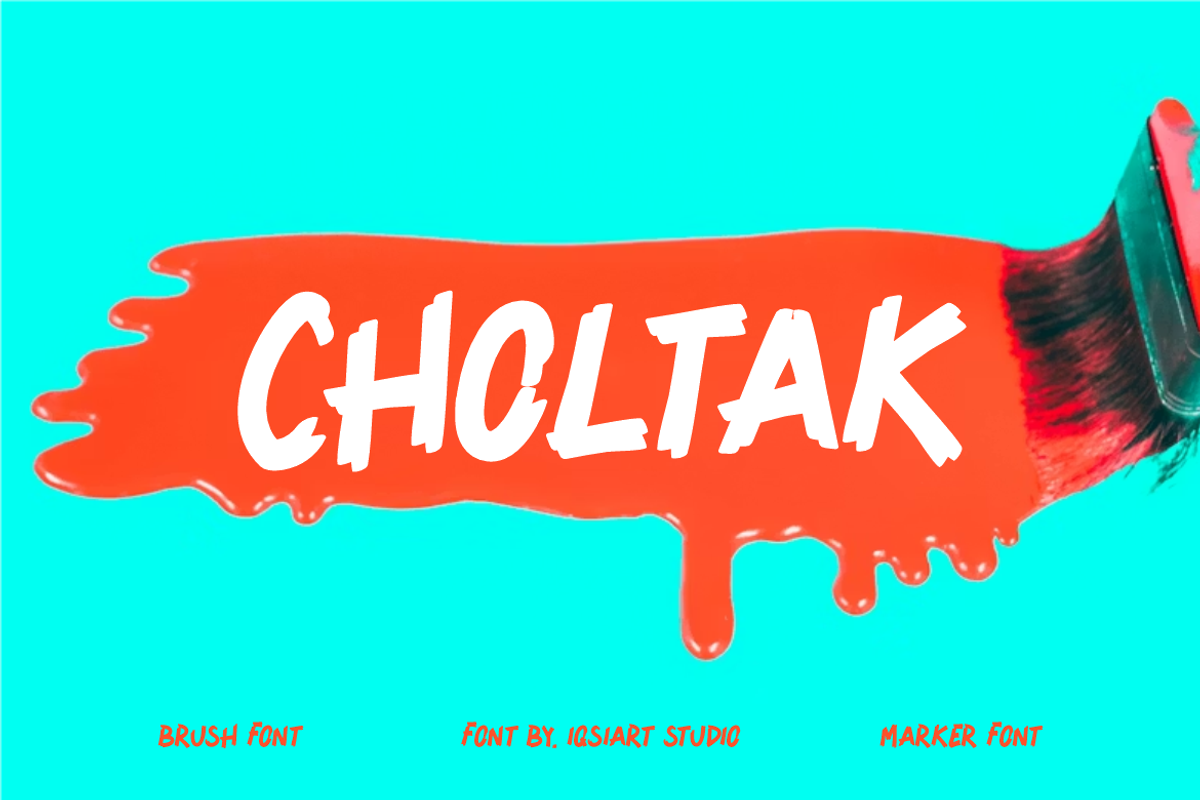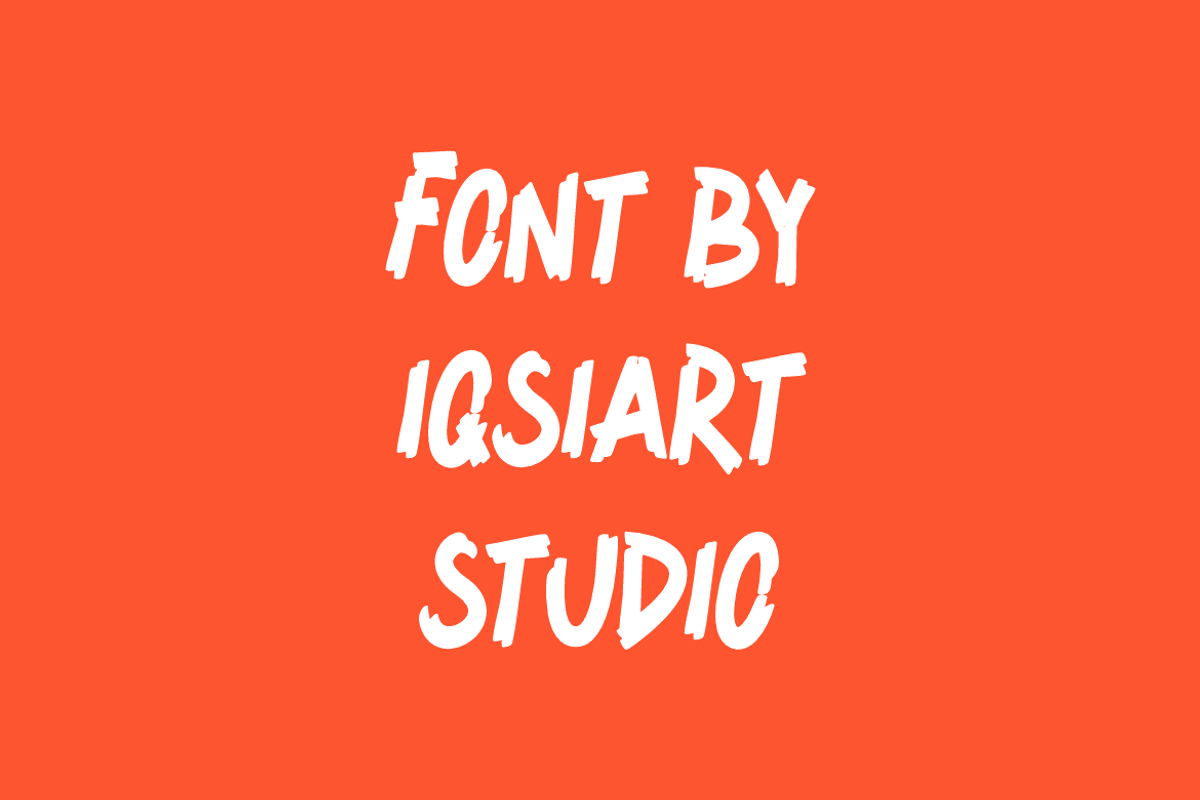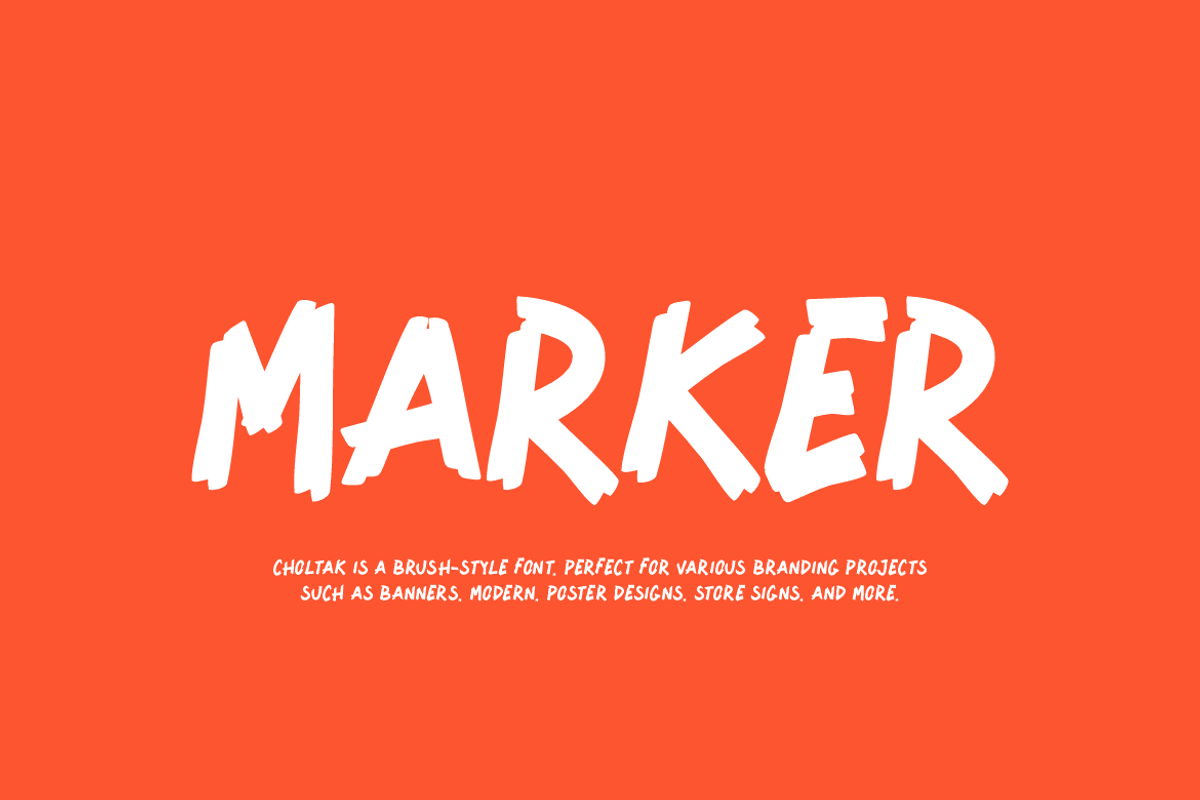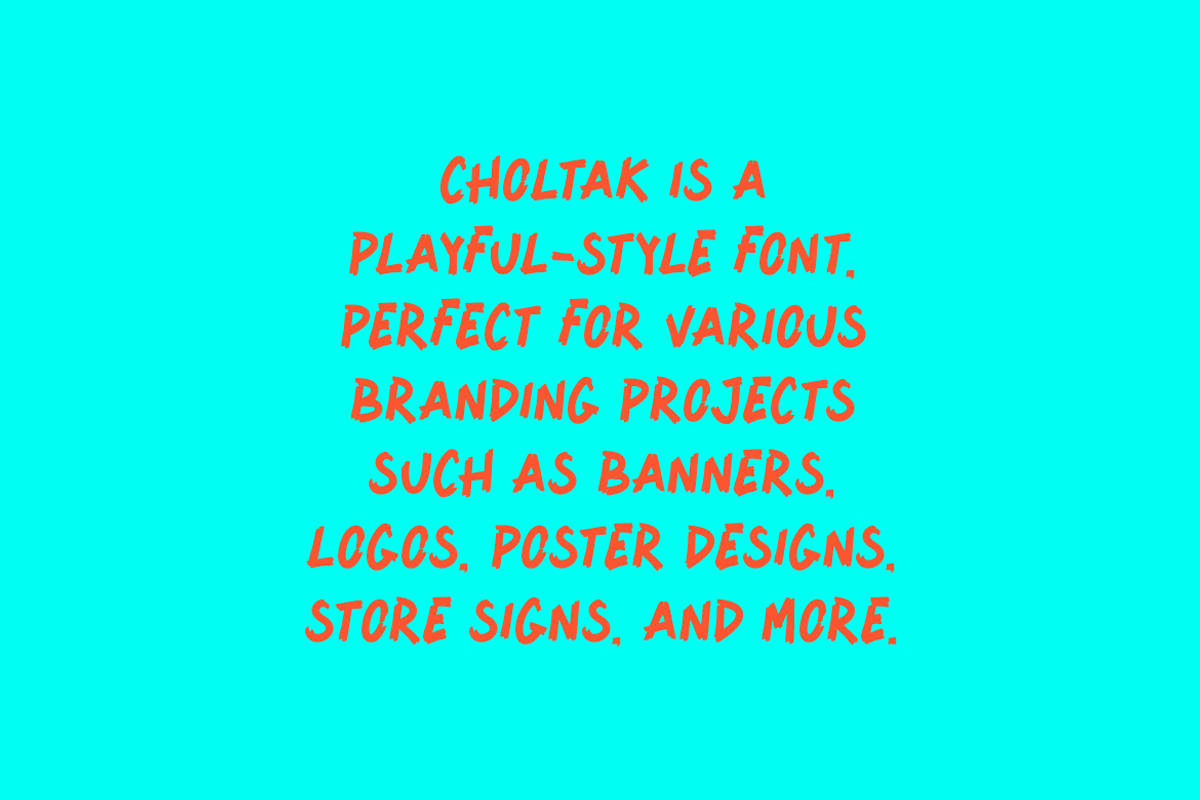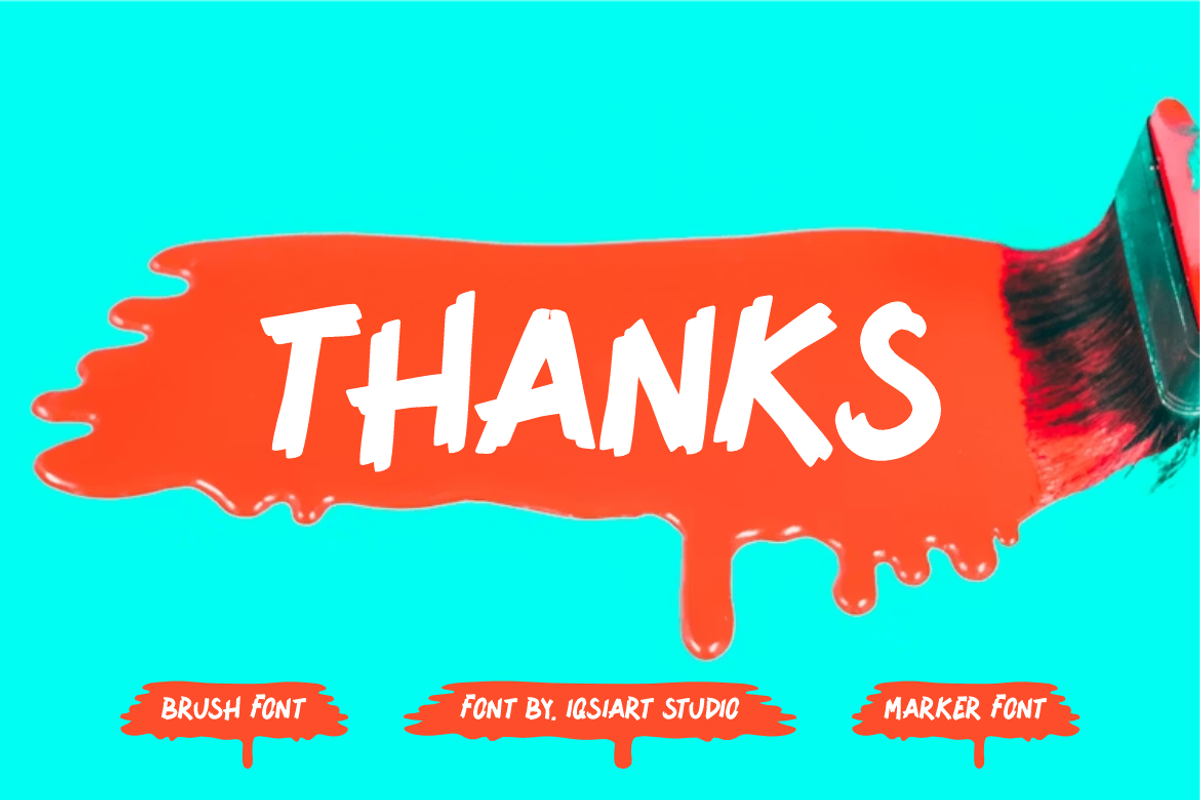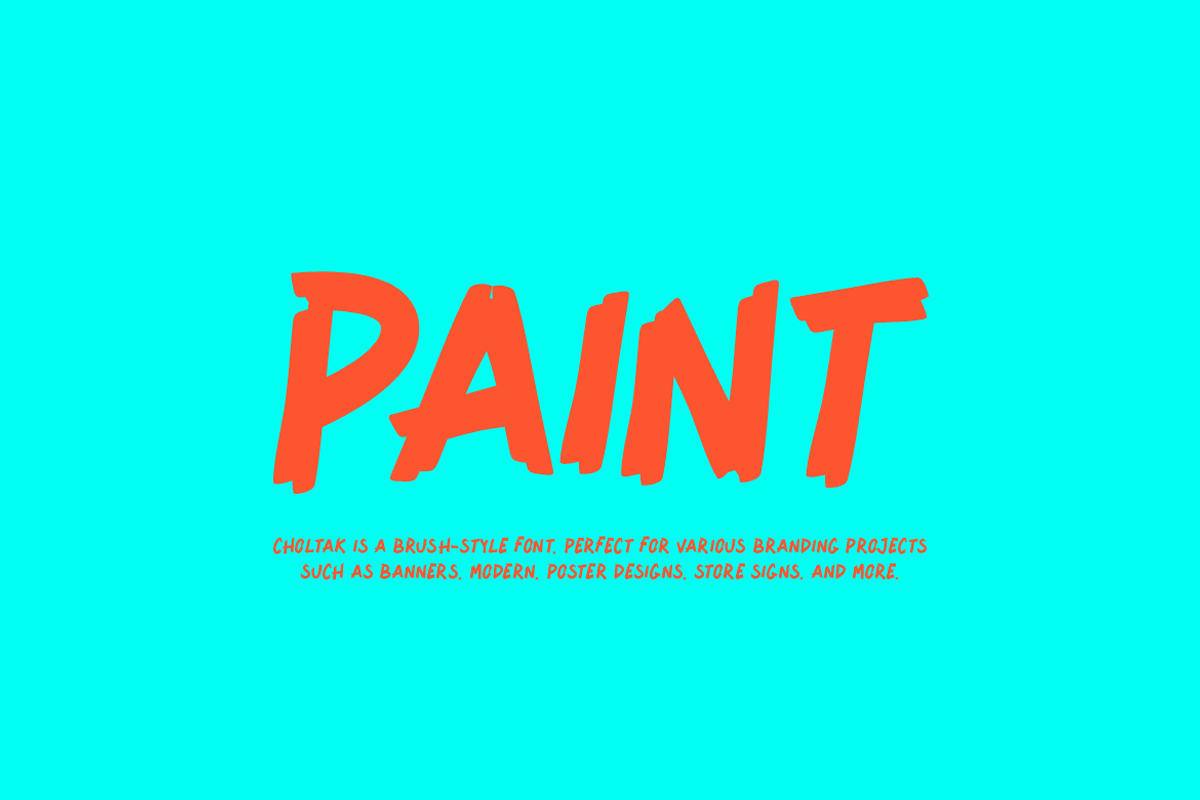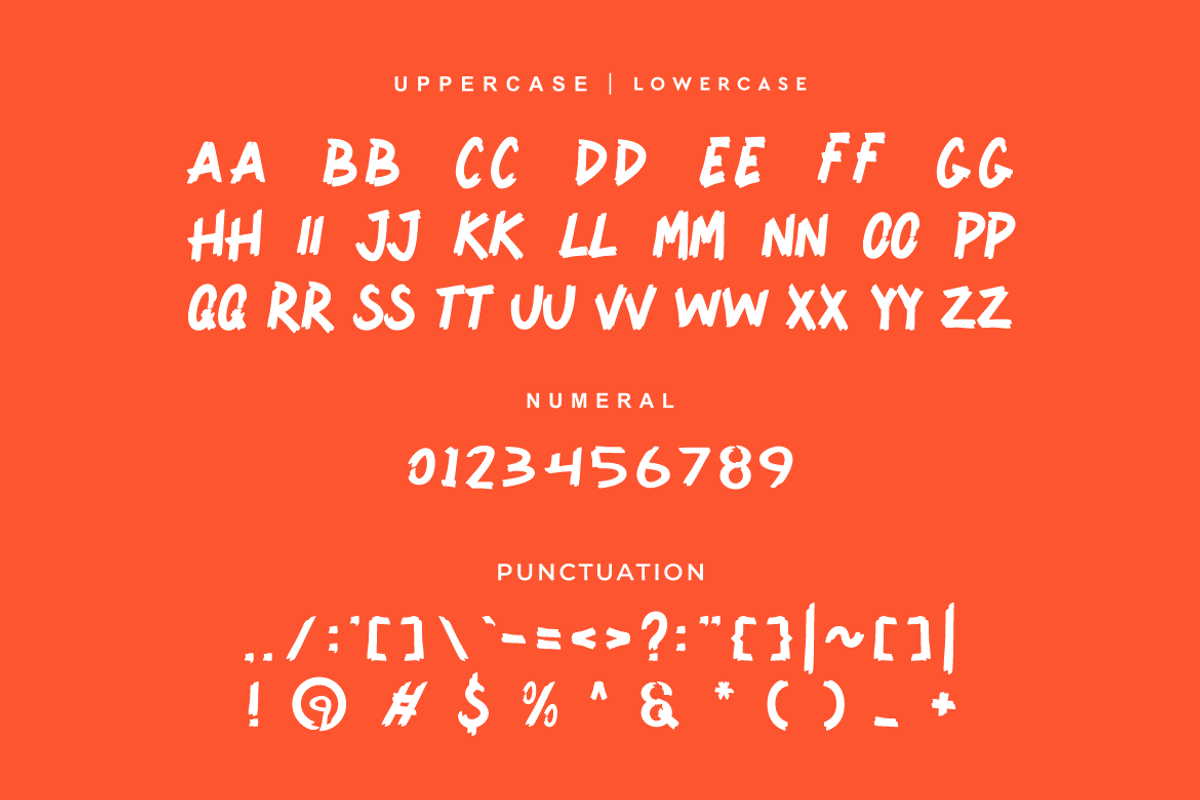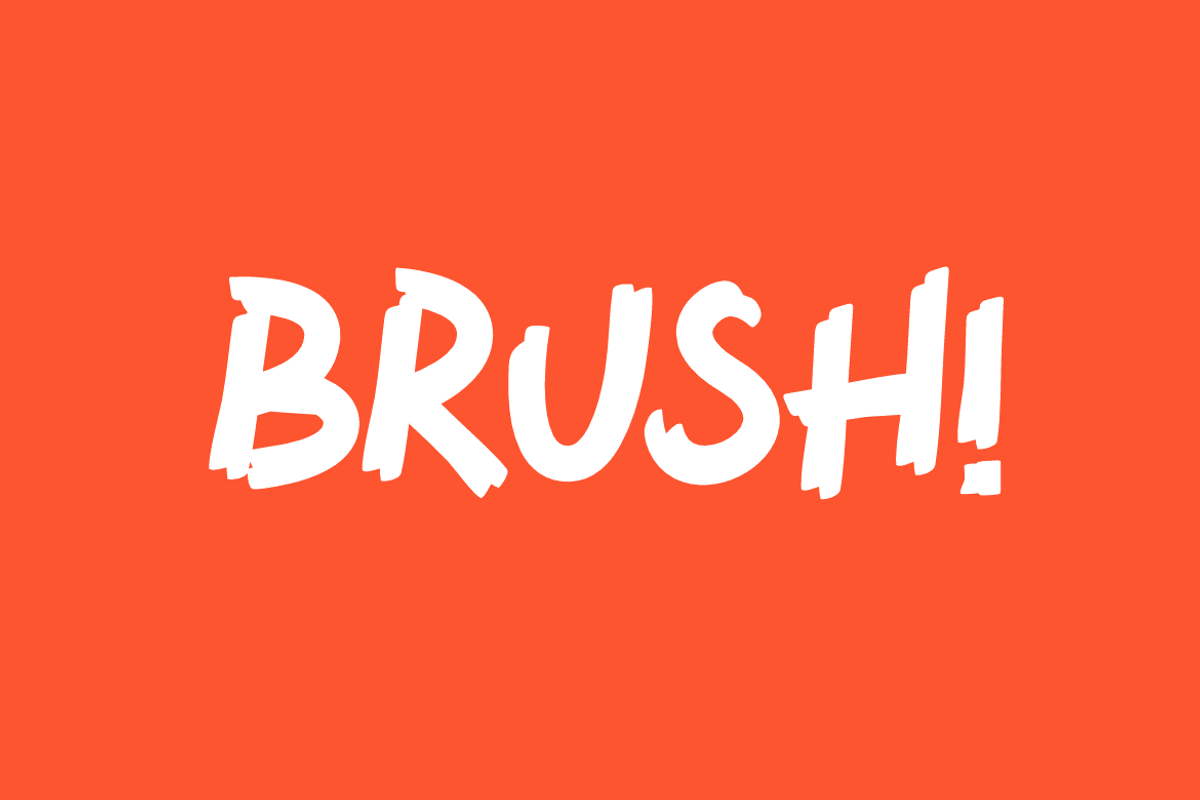
Choltak - Paint Brush Font
Choltak Font is a brush and authentic display typeface
that suits a variety of design needs. We offer a wide range of themes